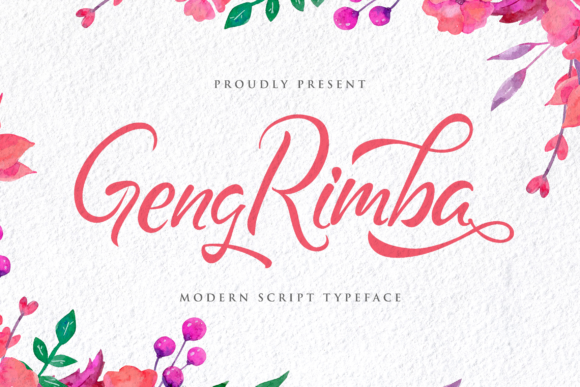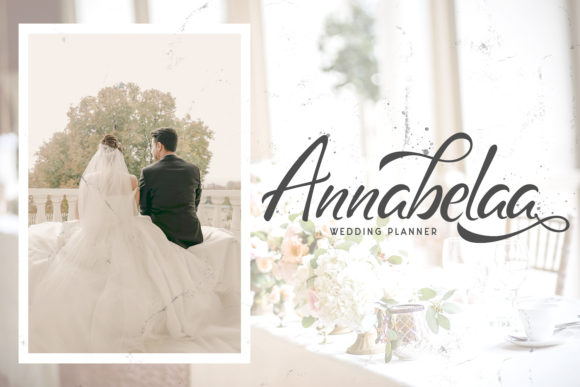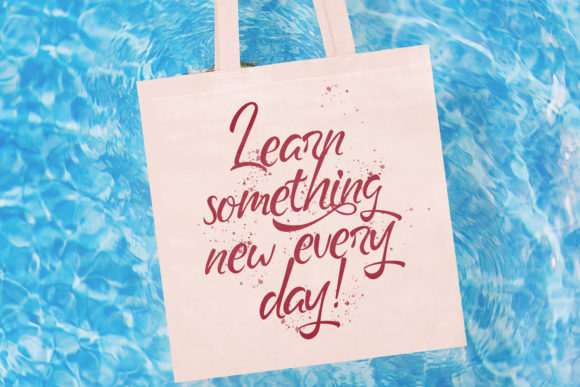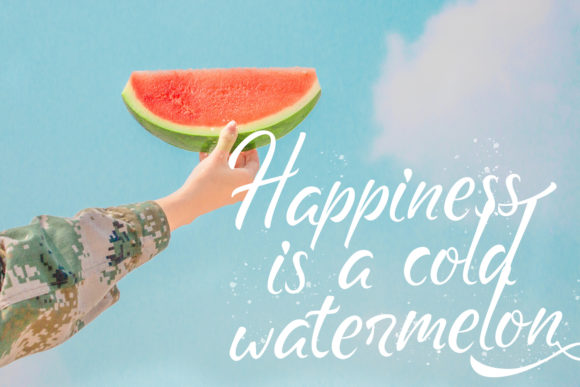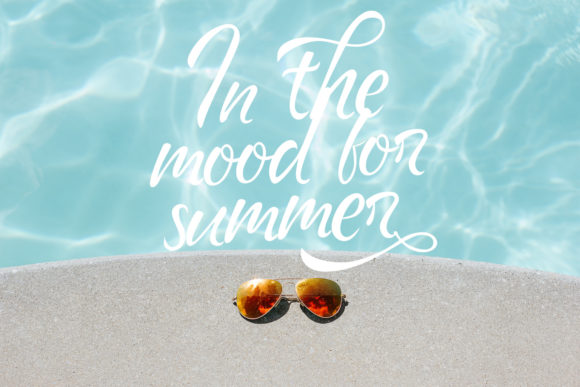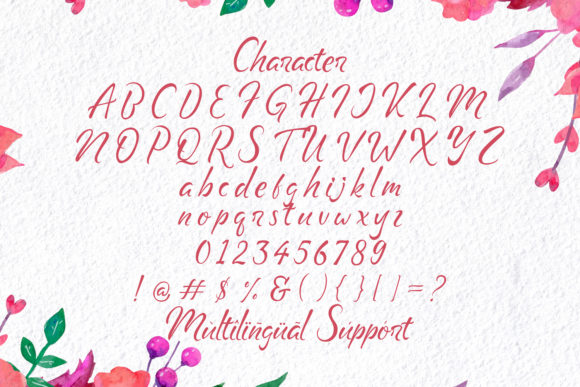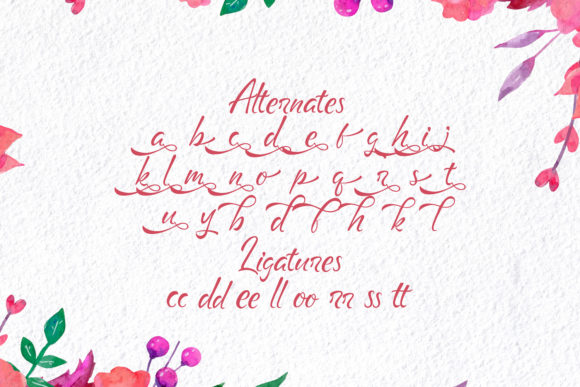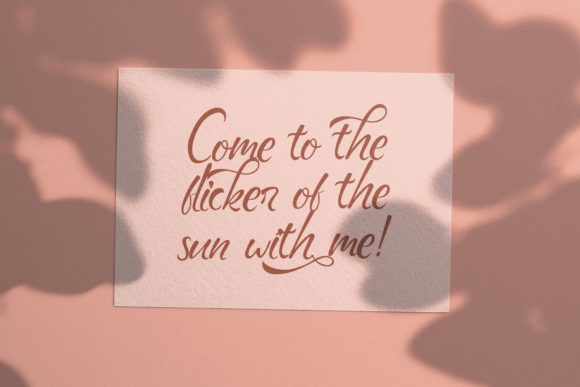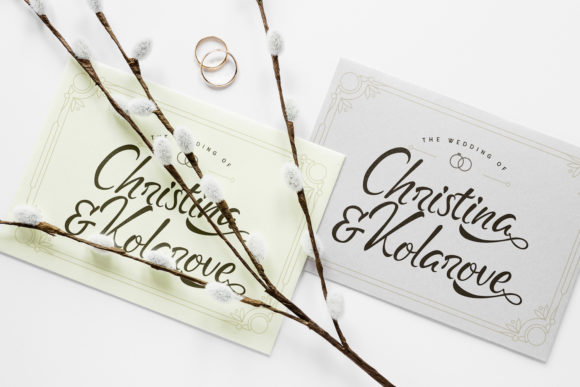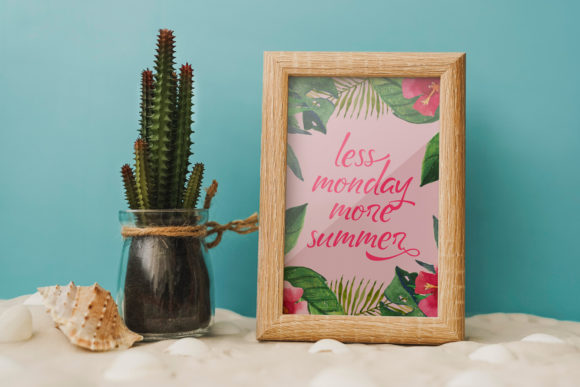
Geng Rimba Font
About Geng Rimba Font
Geng Rimba is a refined and graceful handwritten font, designed with a flowing and elegant touch. With its balanced characters and versatile style, this font can elevate a wide range of design projects. Here are some creative ideas on how to make the most of Geng Rimba font in your designs:
1. Wedding Invitations: Use Geng Rimba to create beautiful and romantic wedding invitations, setting the tone for a special day.
2. Greeting Cards: Design heartfelt and expressive greeting cards with the delicate and flowing script of Geng Rimba.
3. Quotes and Typography Art: Apply Geng Rimba to design stunning typography art, featuring inspiring quotes or phrases that come to life with its elegant flow.
4. Branding and Logo Design: Create a sophisticated brand identity or logo with the refined and graceful style of Geng Rimba.
5. Social Media Graphics: Enhance your social media posts with the elegant touch of Geng Rimba, adding a touch of sophistication to your content.
6. Book Covers: Design book covers with the flowing script of Geng Rimba, adding an air of elegance and charm to literary works.
7. Signature Style: Use Geng Rimba to create a unique and personalized signature style, perfect for signing off on important documents and emails.
8. Stationery Design: Apply Geng Rimba to create elegant stationery designs, perfect for formal correspondence and business materials.
9. Packaging Design: Incorporate Geng Rimba into packaging designs for luxury or high-end products, exuding an air of sophistication and refinement.
10. Wall Art: Create beautiful wall art using Geng Rimba font, adding a touch of elegance and grace to any space.
11. Blog and Website Headers: Use Geng Rimba to design eye-catching blog headers or website banners, drawing visitors in with its elegant appeal.
12. Event Materials: Apply Geng Rimba to design event materials such as programs, menus, and place cards, adding a touch of elegance to the occasion.
13. Product Labels: Design product labels with the delicate and flowing script of Geng Rimba, making your products stand out with a touch of sophistication.
14. Magazine Layouts: Enhance magazine layouts with the refined and graceful style of Geng Rimba, creating a sense of elegance and beauty.
15. Artistic Projects: Use Geng Rimba in various artistic projects, from calligraphy and watercolor illustrations to mixed-media artworks.
Geng Rimba, with its delicate and elegant flow, is a font that can add a touch of sophistication and charm to any design project. Its PUA encoding allows for easy access to swashes and glyphs, providing even more creative possibilities. Whether for formal or artistic designs, Geng Rimba will surely bring your creative ideas to life with its graceful and flowing handwritten style.